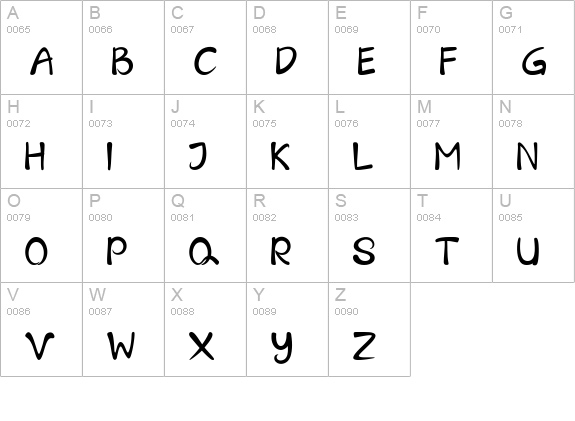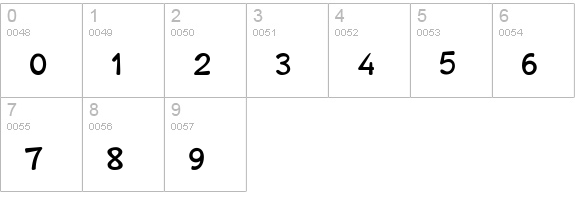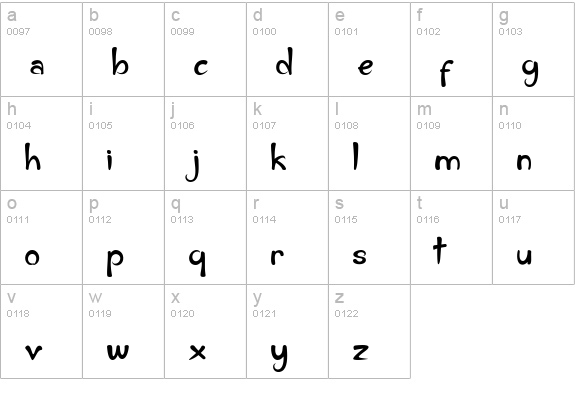
Velissa Font Details
Velissa font is a modern and elegant typeface that exudes sophistication and style. Its sleek lines and unique curves make it perfect for a wide range of design projects, from branding to editorial design. The versatility of Velissa font allows it to be used for both headings and body text, ensuring a cohesive and polished look throughout your work.